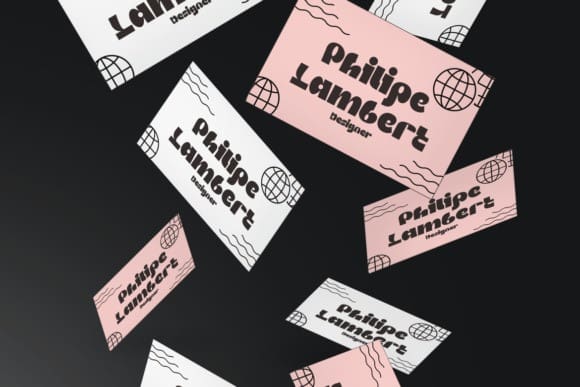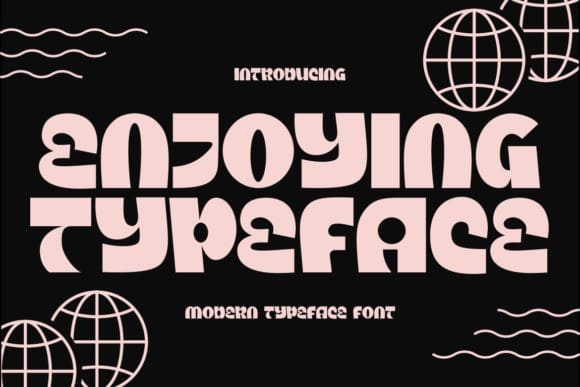
Enjoying Typeface Font
Enjoying Typeface Font – Modern Display Font is a bold and contemporary font with a unique twist, offering two distinctive versions for added versatility. Its bold and playful characters make it an excellent choice for logos, quotes, posters, titles, headlines, magazines, business branding, product names, stickers, and invitation cards. With its thick, distinctive design, this font is sure to stand out and leave a lasting impression, making it quickly recognizable and perfect for a wide range of creative projects.